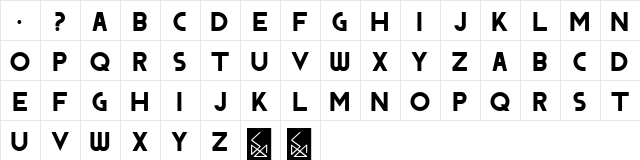
DODGE DODGE Font Preview
| Designer | SAJI JOHNNY KUNDUKULAM |
Design Context for DODGE Typeface
DODGE offers clean, dependable letterforms without strong stylistic allegiance, making it a practical choice for designers who need flexibility.